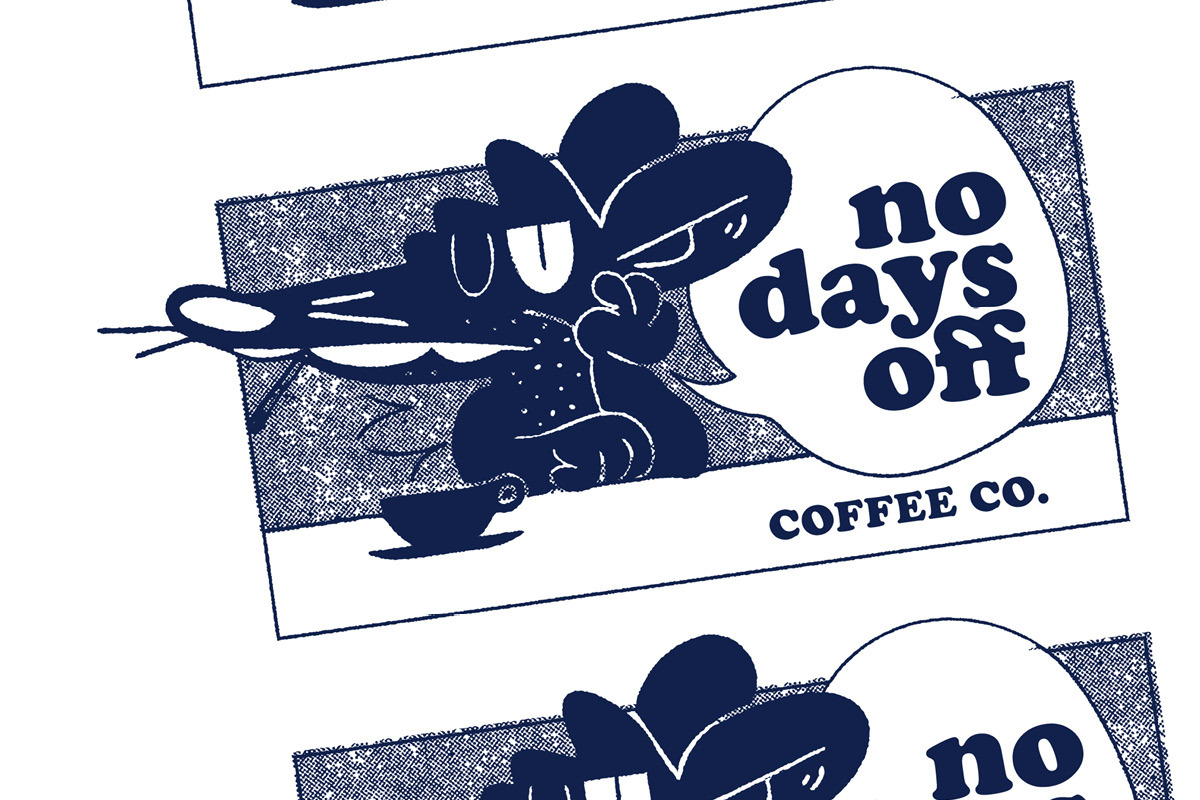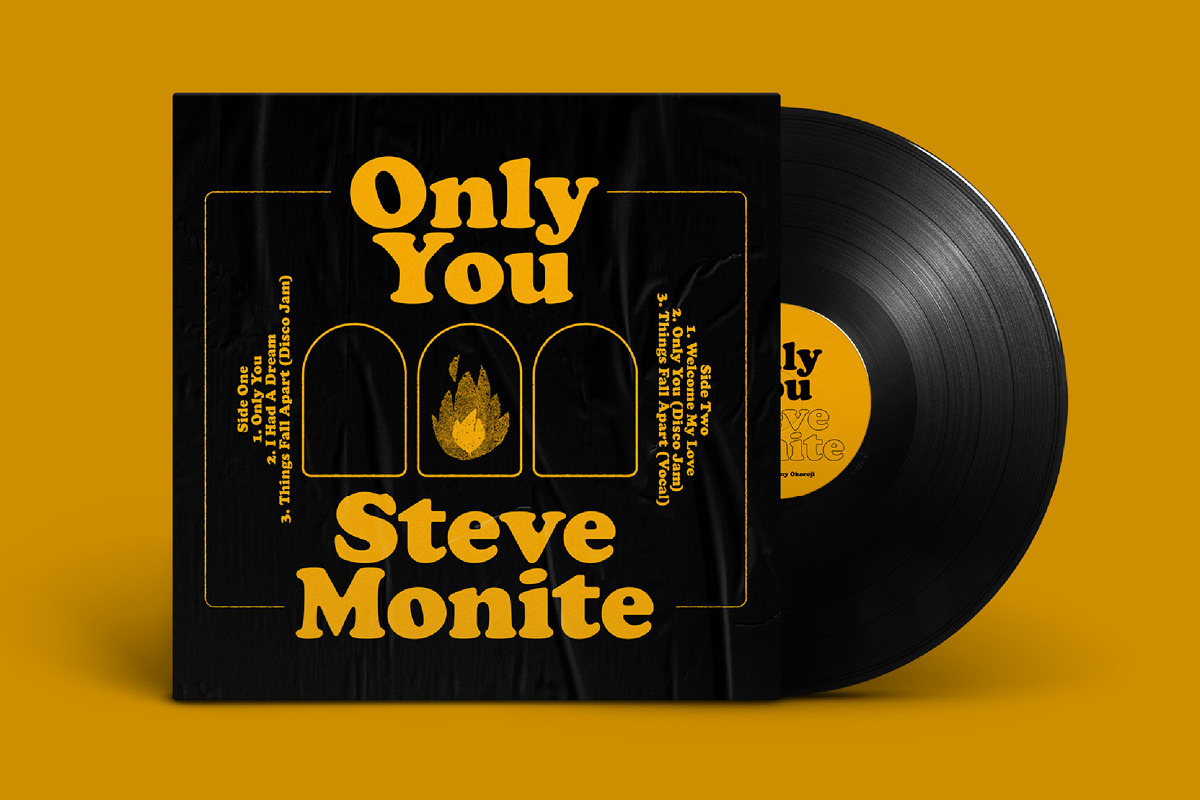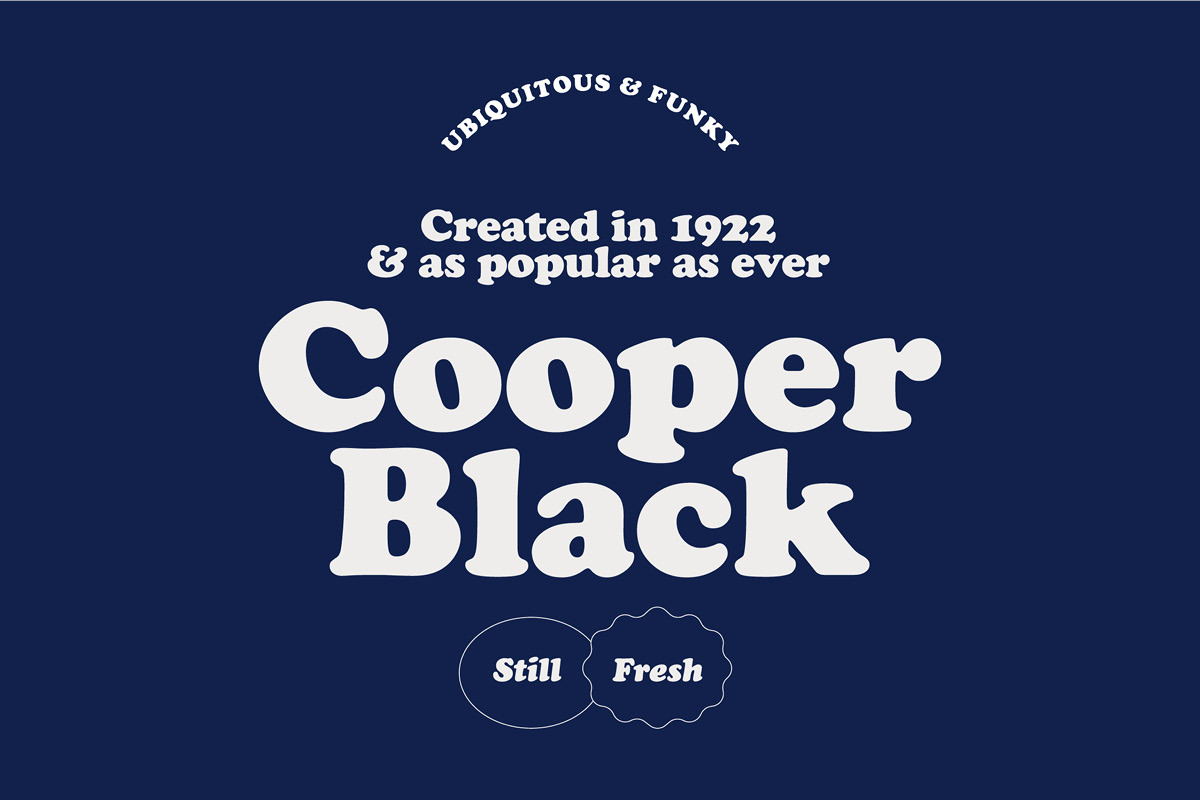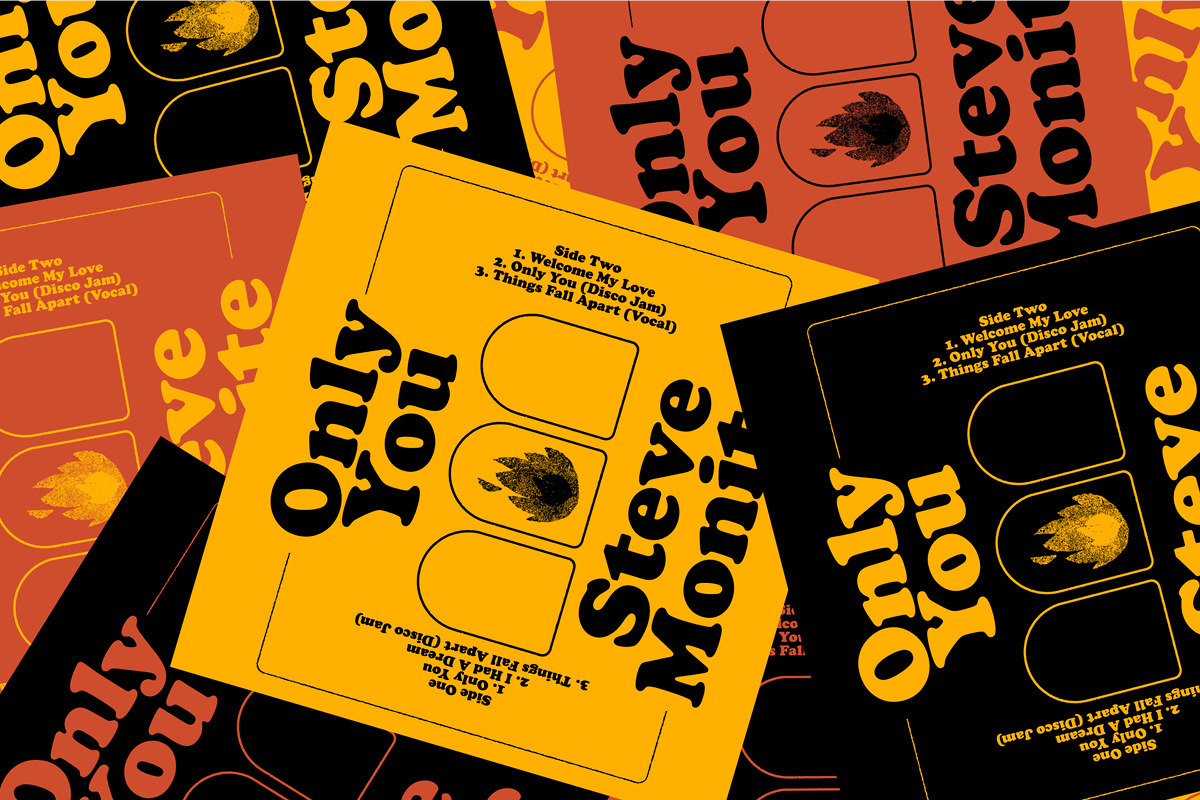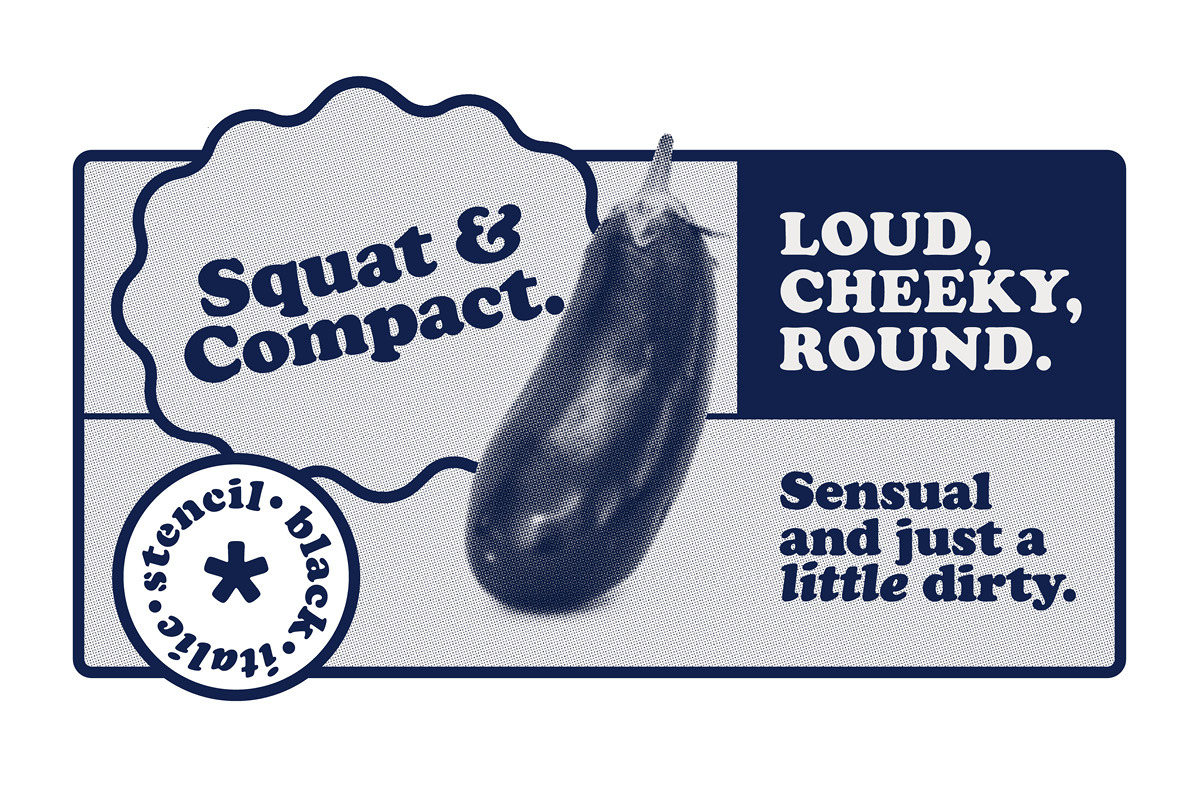
Cooper font family by FontPeople
FontPeople’s Cooper Black is a friendly, chubby typefaces with rounded serifs and tilted back ovals. It is perfect whenever an informal, friendly character is desired in your designs.
This release adds variations not present in the original design: In addition to a true italic you can also use a stencil variant.